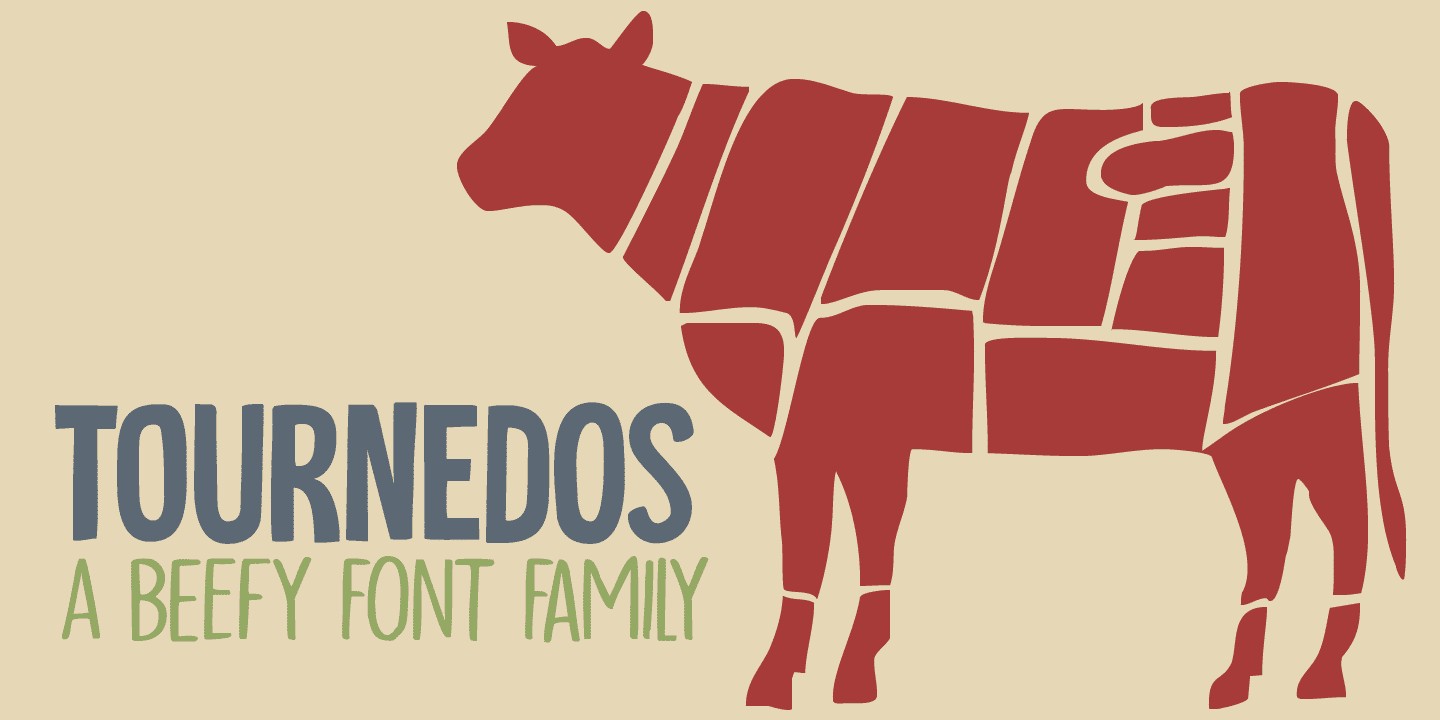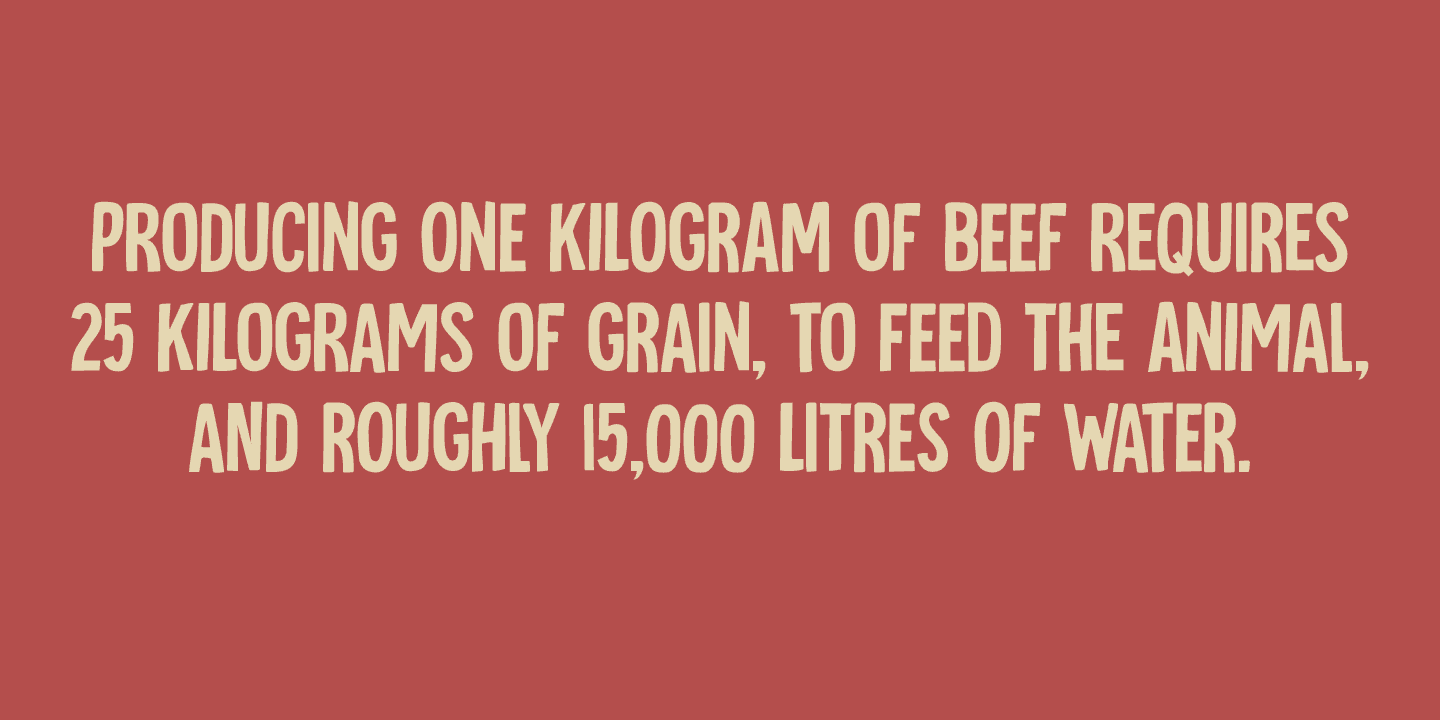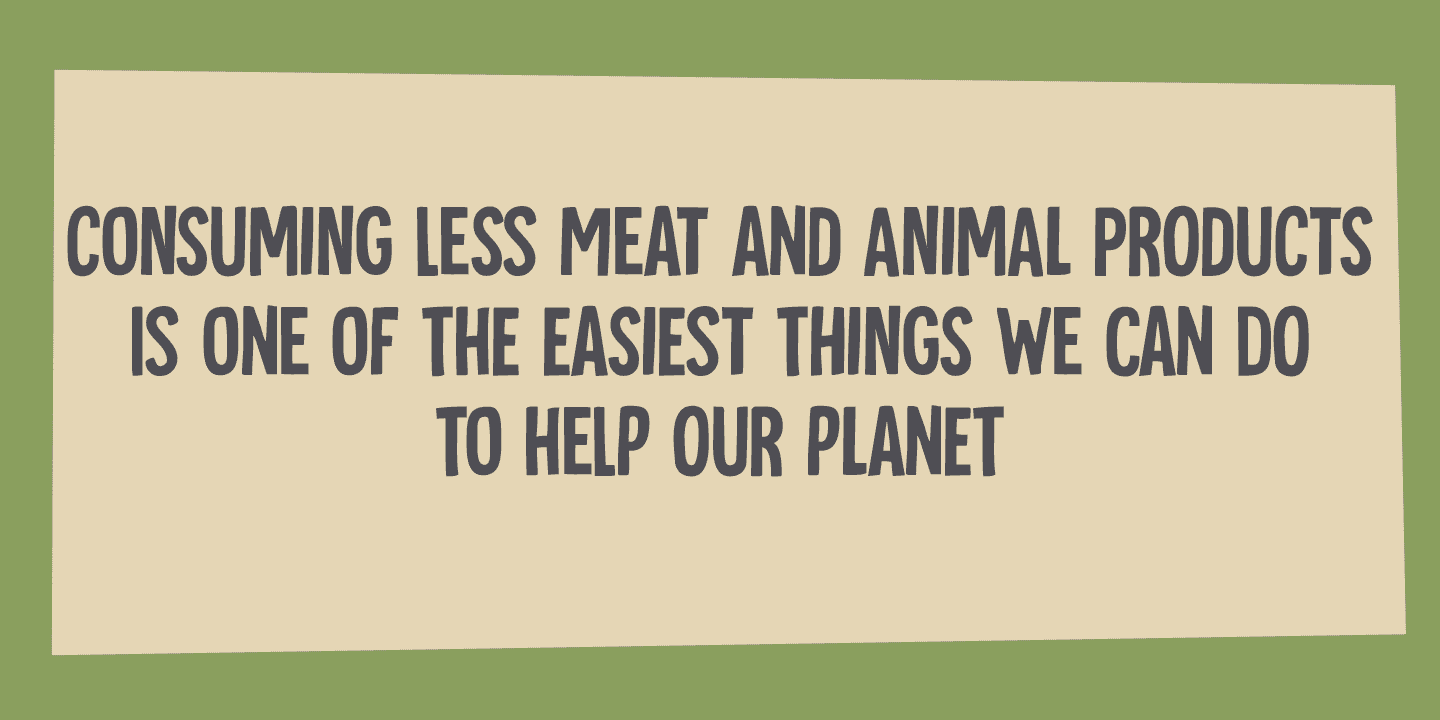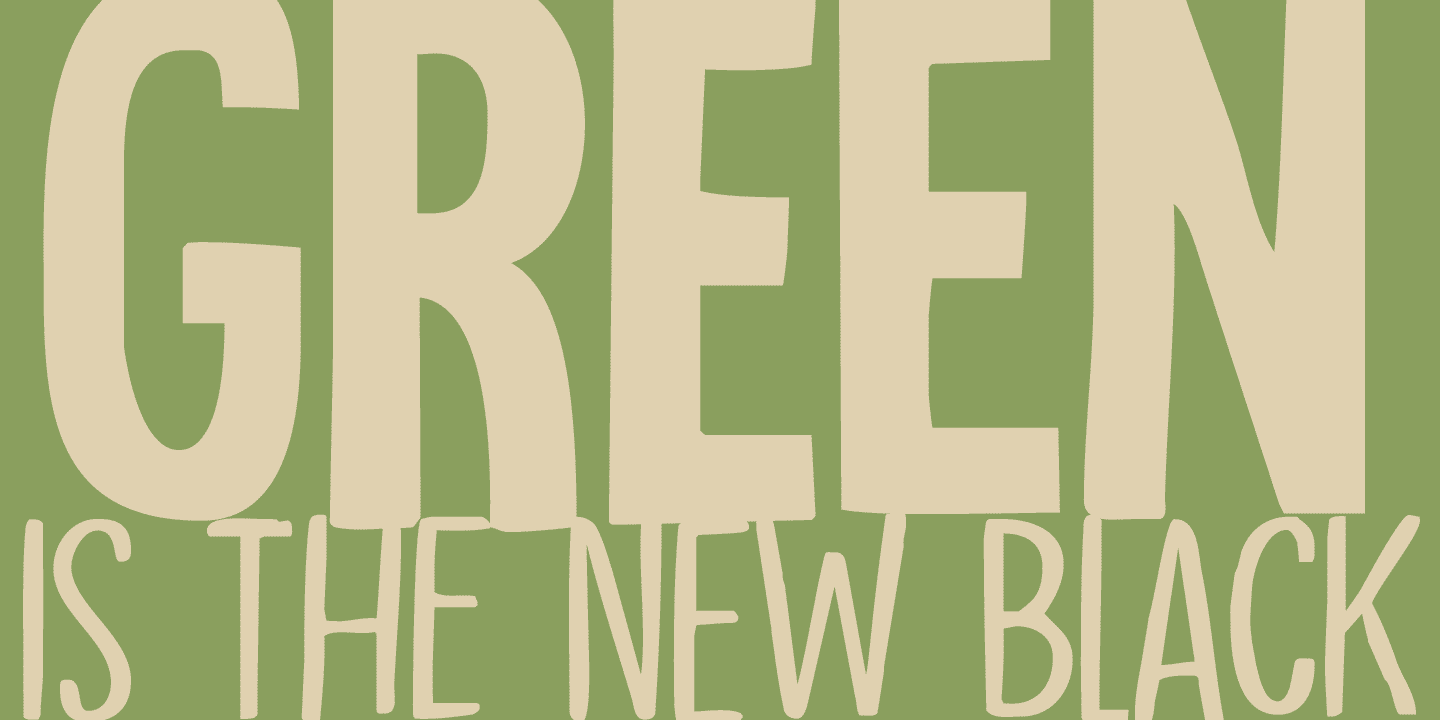
Tournedos Family (4 fonts)
Tournedos is a beefy font family: a chunky all caps set of fonts - and a leaner set to counter and complement this rather heavy dish.
And do eat your greens!